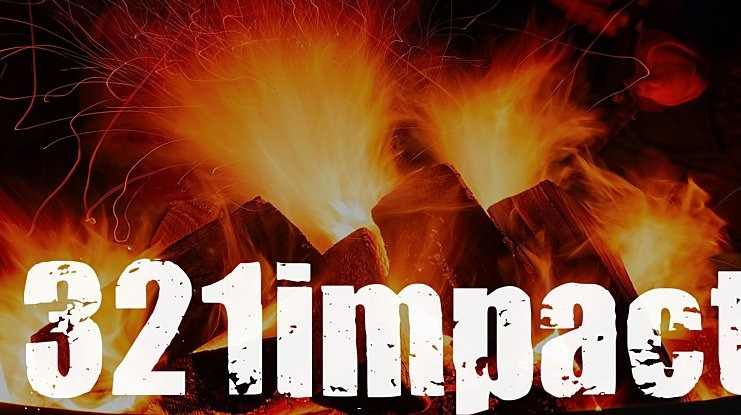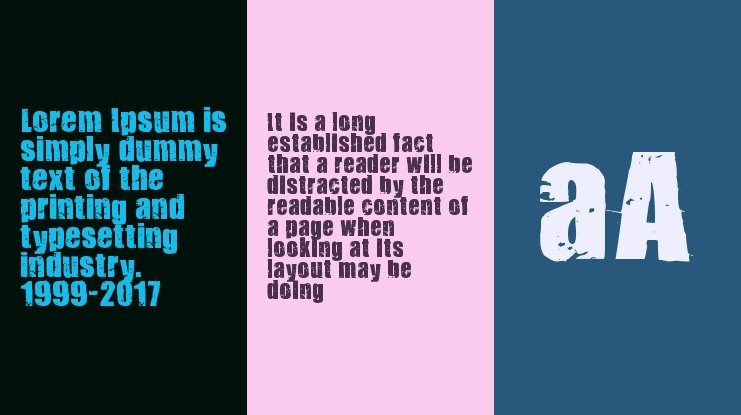
321 Impact Font
321 Impact Font , It can easily be matched to an incredibly large set of projects, so add it to your creative ideas and notice how it makes them stand out!
This font was made by printing out a couple pages full of impact letters, folding up the paper and putting them in my back pocket for the day. Not having a scanner at the time, I took pics of each page,
traced them in Illustrator, and used fontlab for the creation of the font itself.